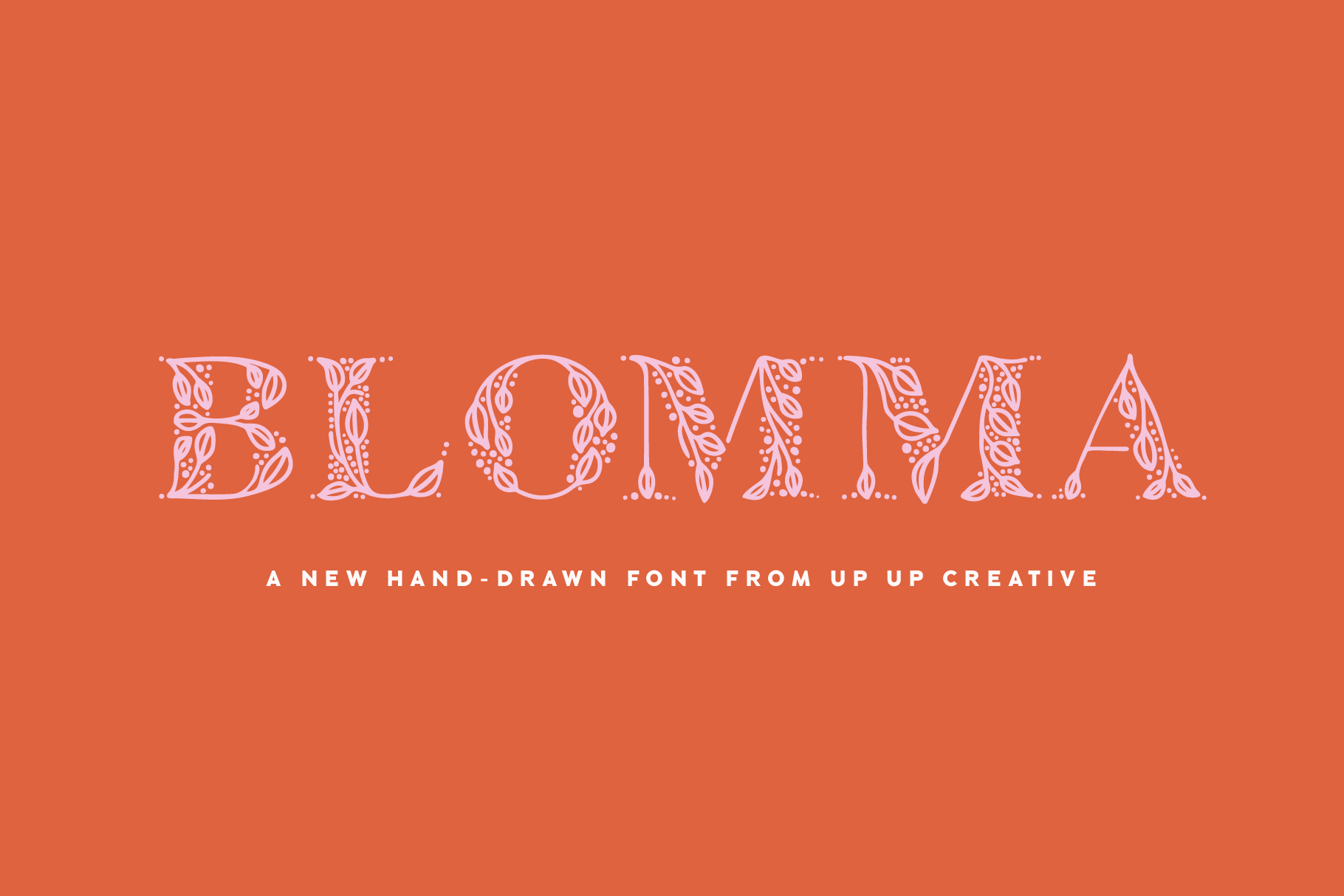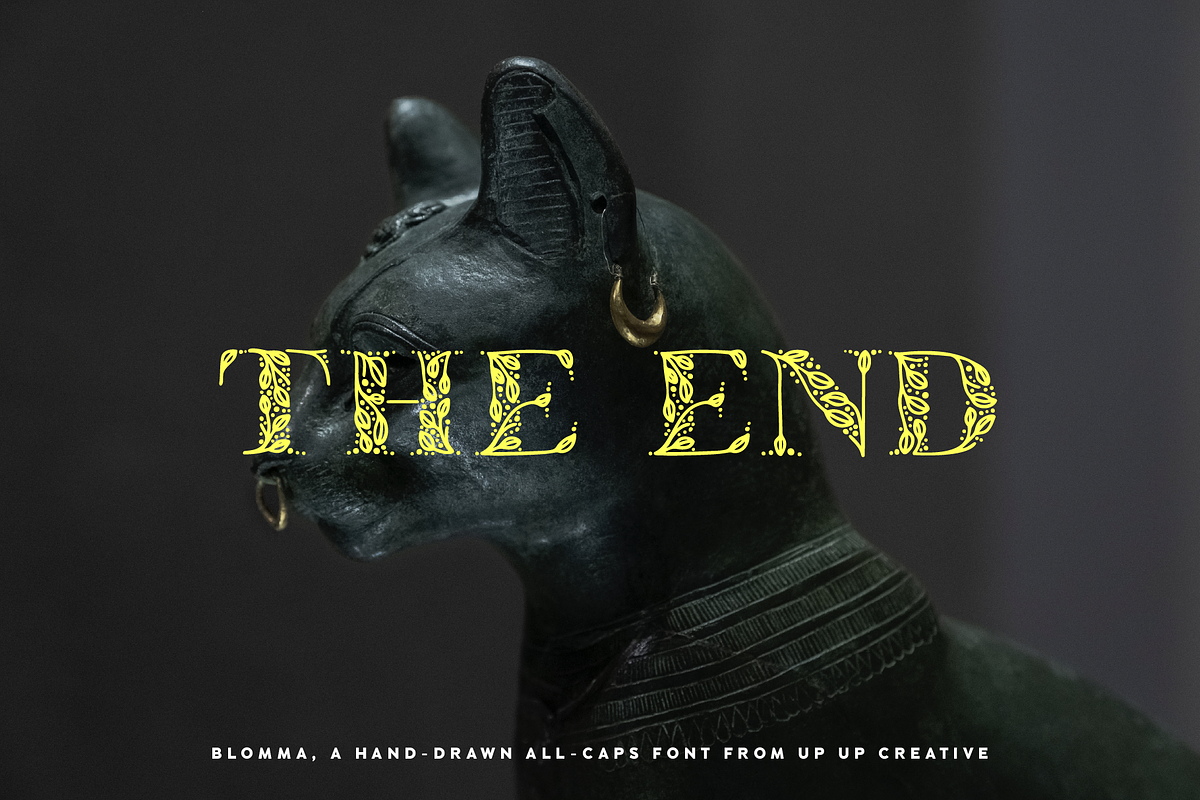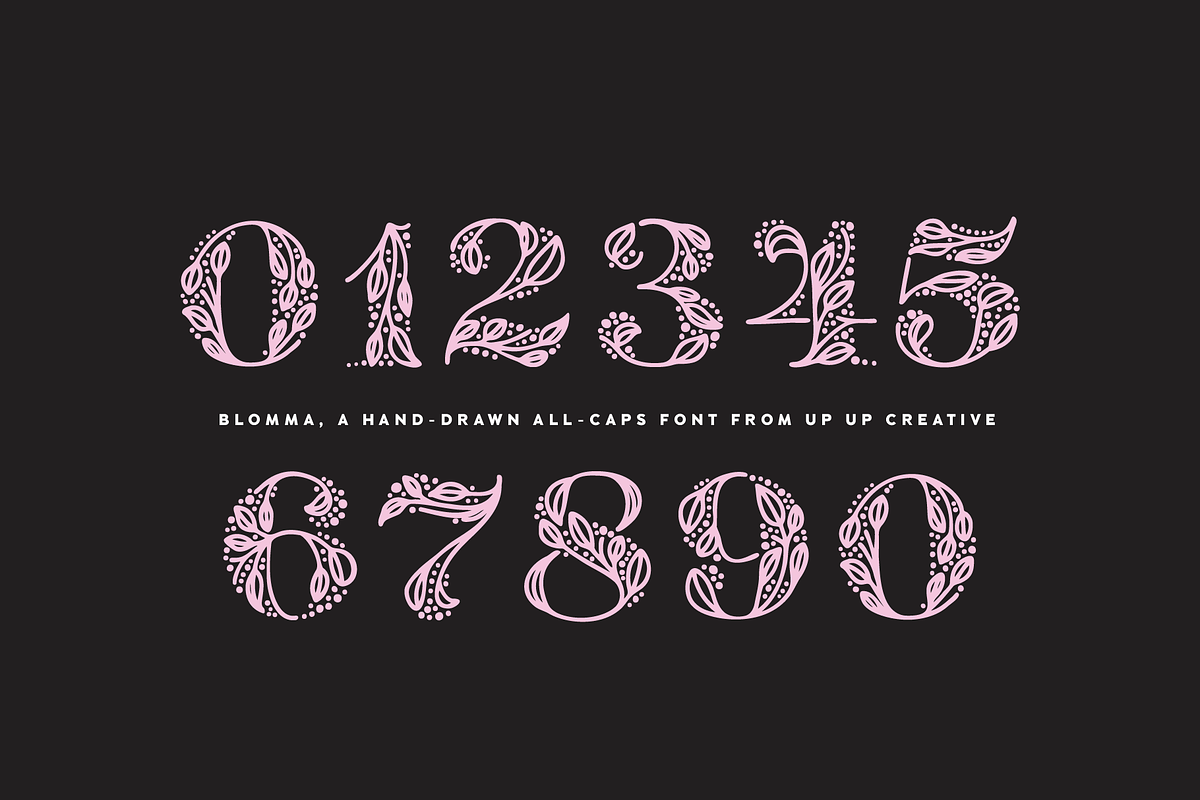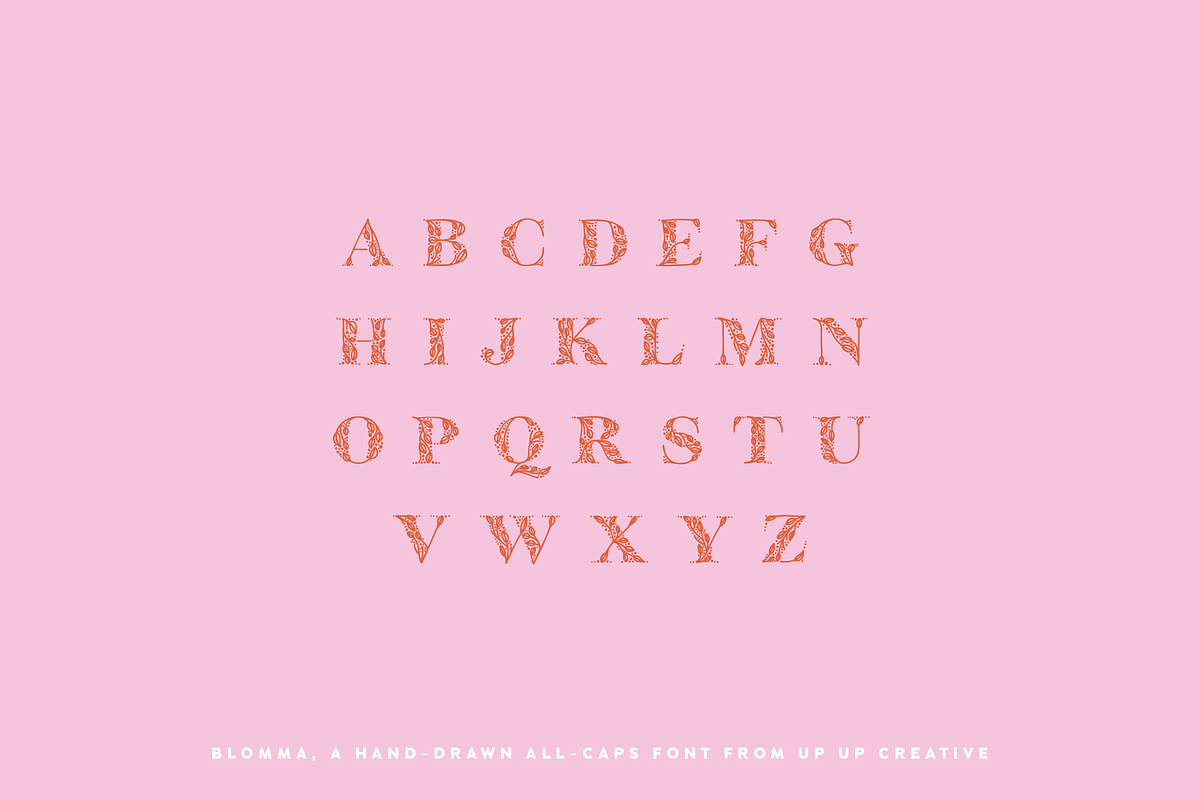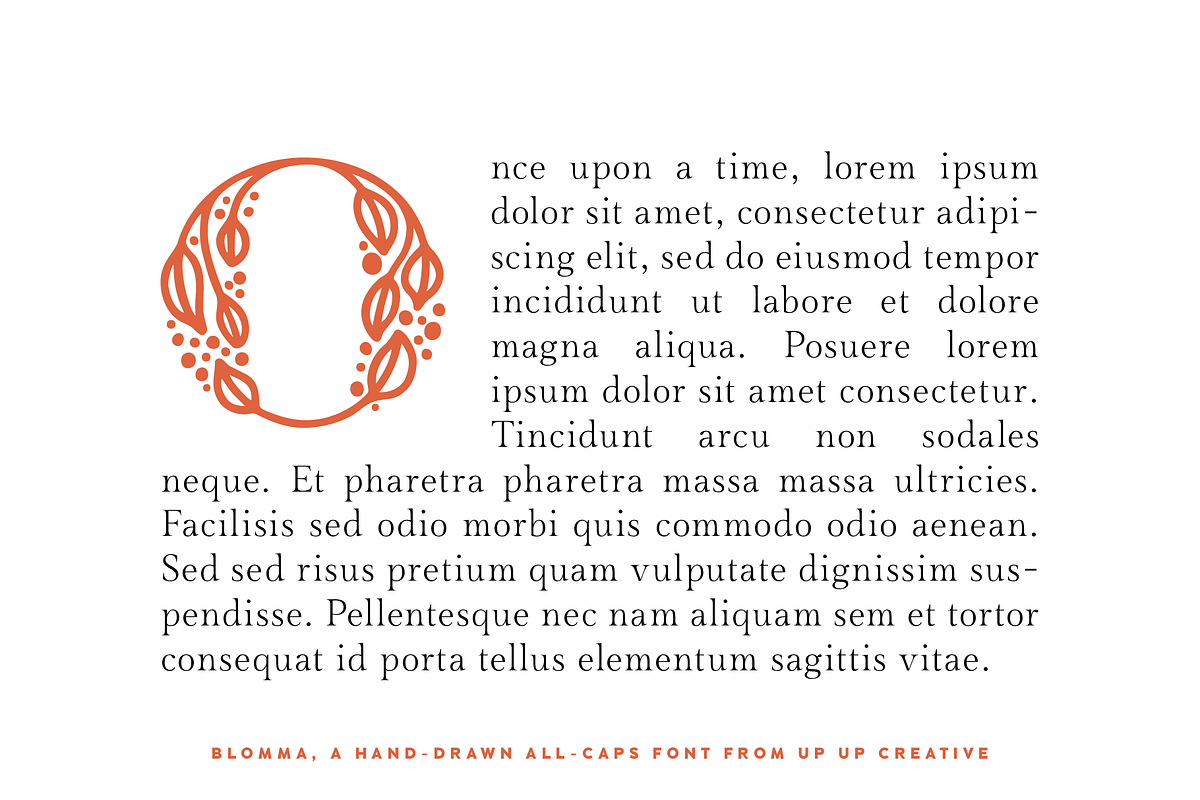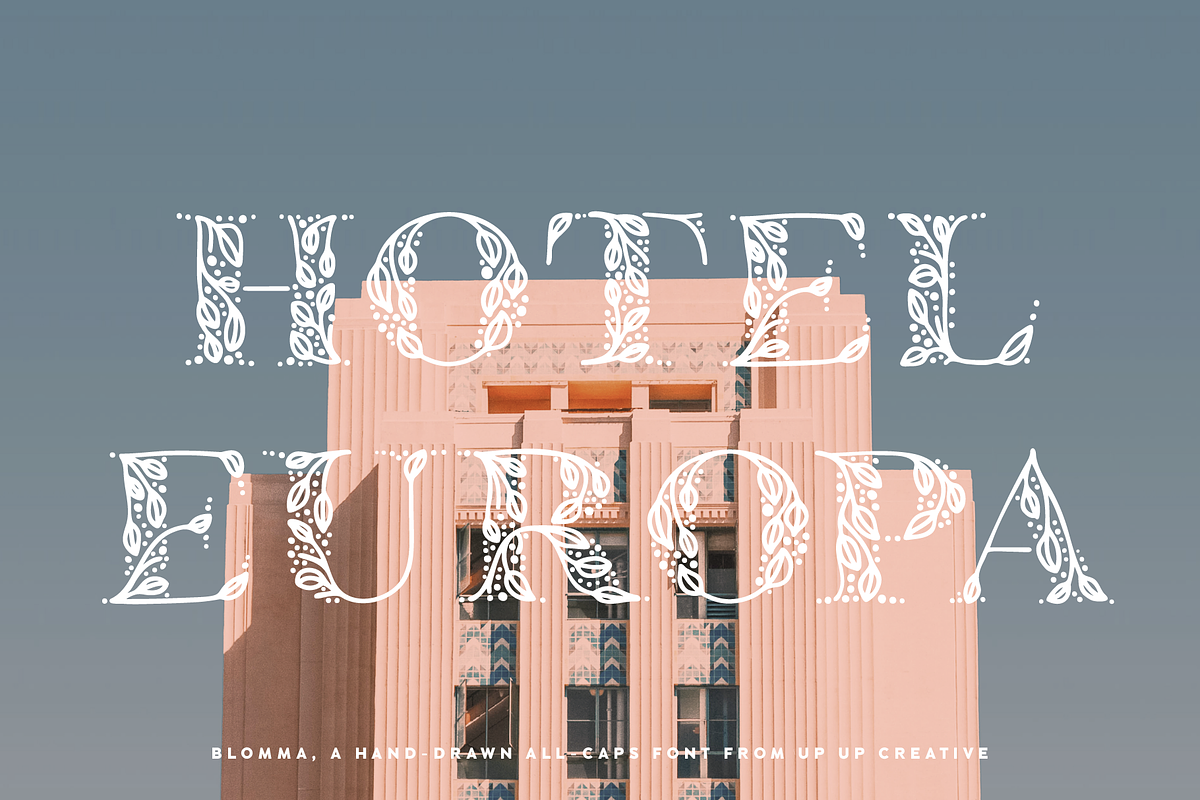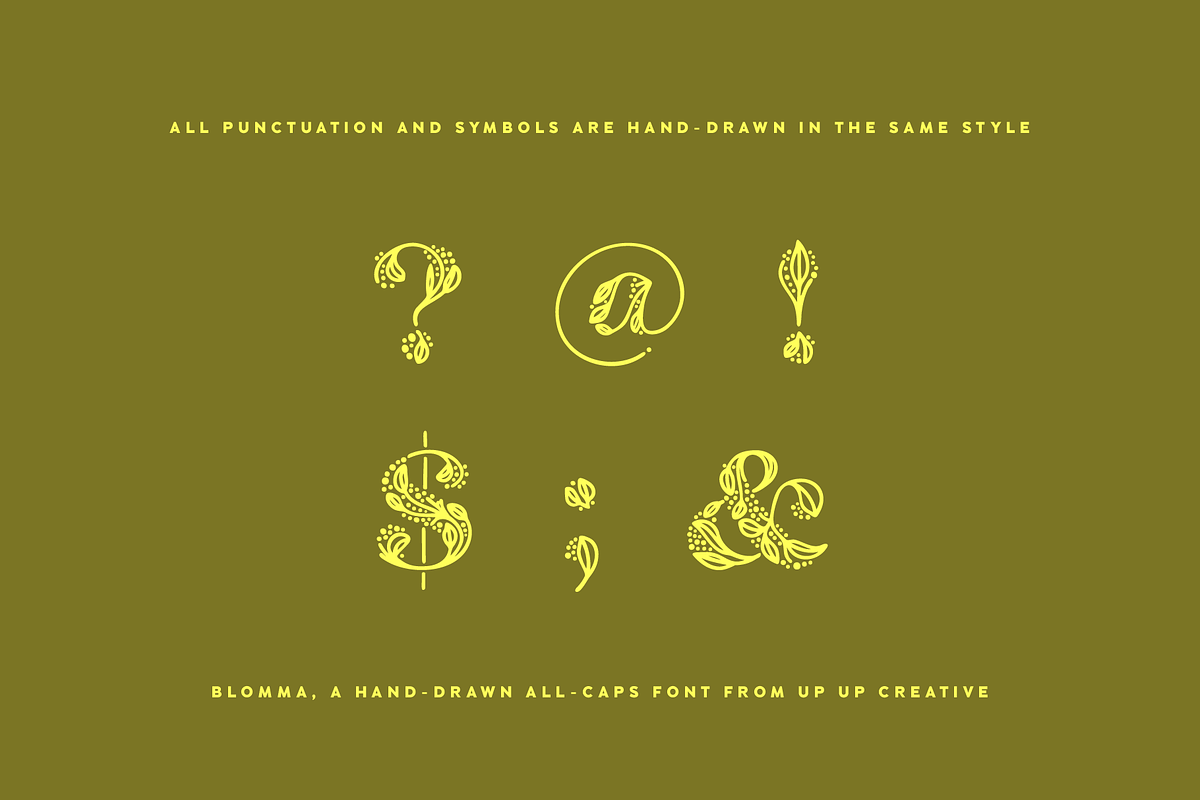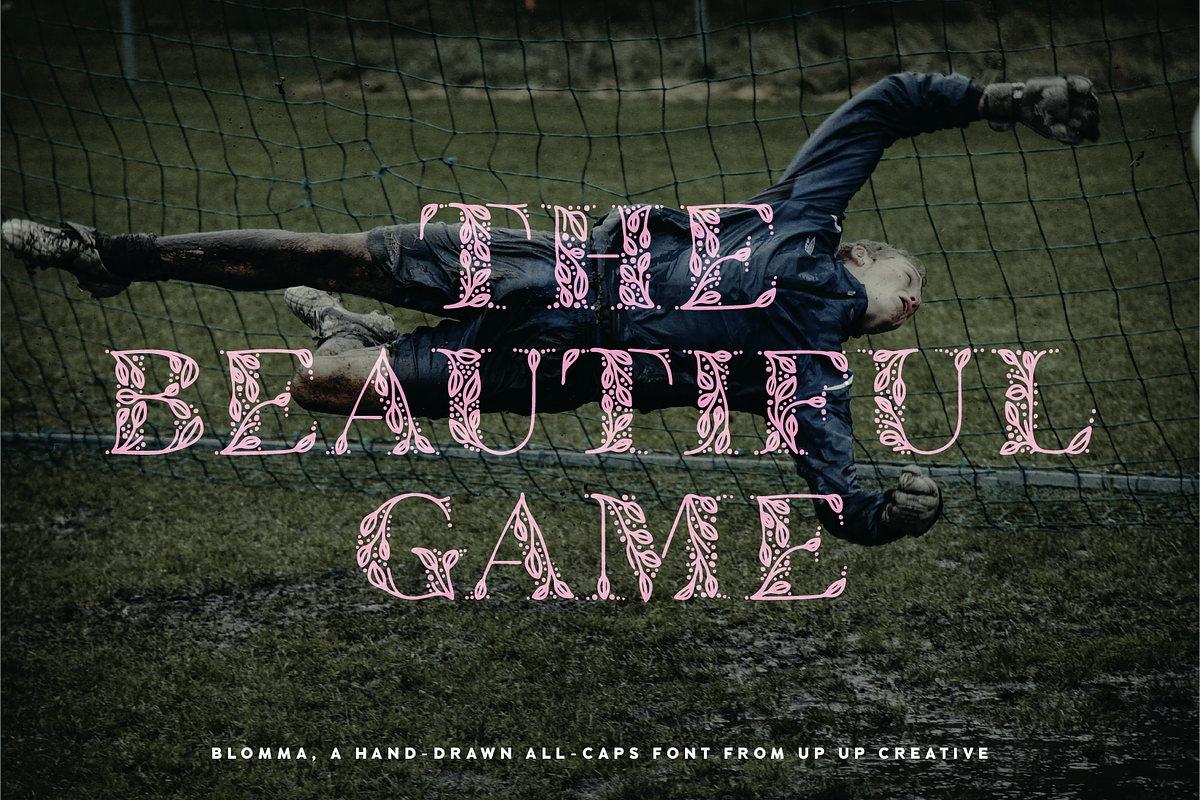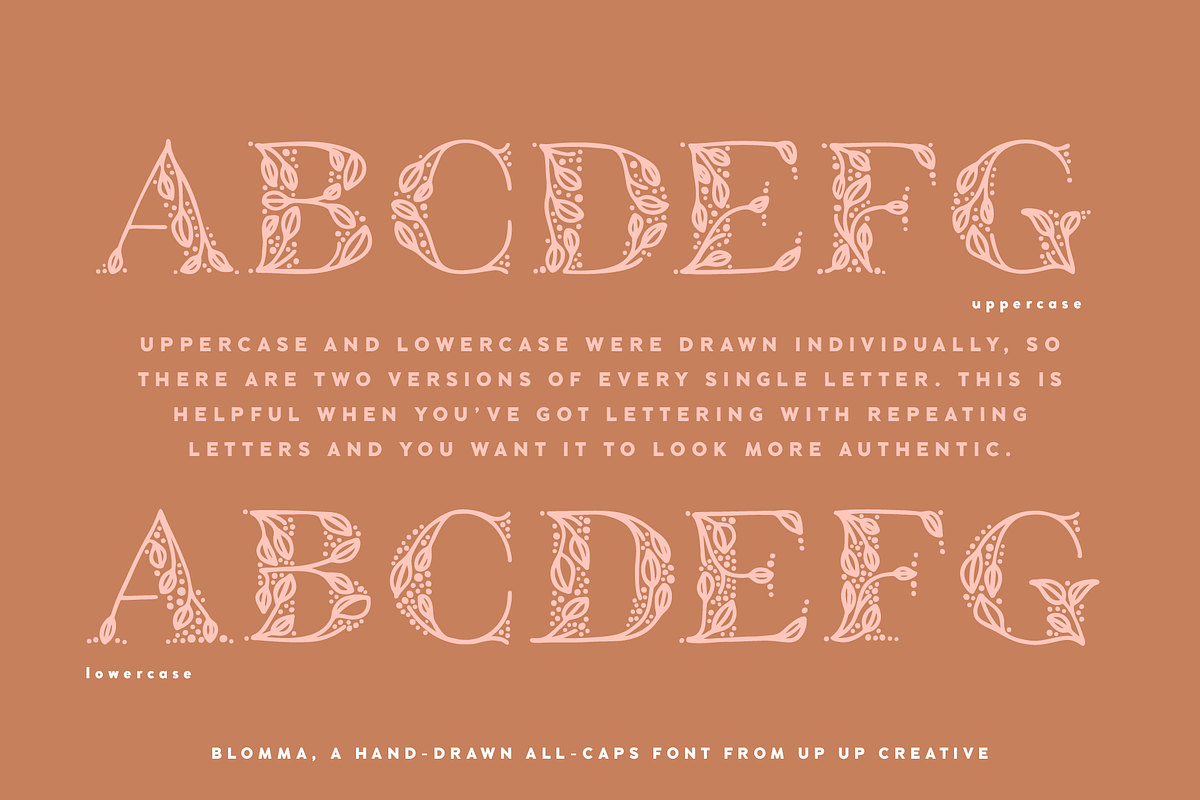
Blomma Hand-Drawn Display Font
Blomma is a hand-lettered all-caps display font with intricate botanical details. It includes full support for 201 languages, plus a full set of punctuation, numerals, and more, all drawn in the same botanical style.
The uppercase and lowercase versions of each letter were drawn independently of one another, so that means you get two versions of each letter to play with. This is so helpful if you want to give a more authentic hand-lettered look to type with repeating letters.
Blomma is perfect for monograms, logos, headlines, editorial design, branding, poster design, and more.
Blomma includes approximately 390 glyphs.